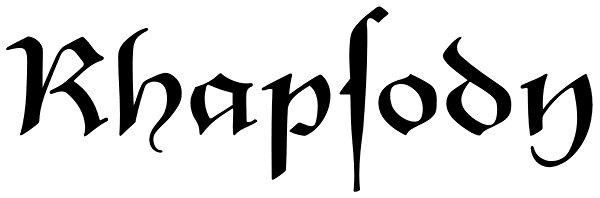
Rhapsody
Rhapsody clearly shows Unger's love with Blackletters and Gothics. In contrast to many existing Blackletters, Rhapsody is really easy to read. The calligraphic forms of the upper case combined with its lower case appear very special, very unique...